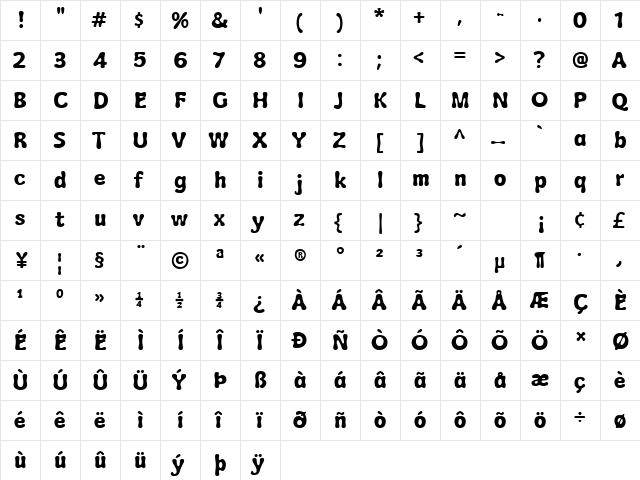
Wubble Regular
Design Context for Wubble Typeface
Wubble offers clean, dependable letterforms without strong stylistic allegiance, making it a practical choice for designers who need flexibility.